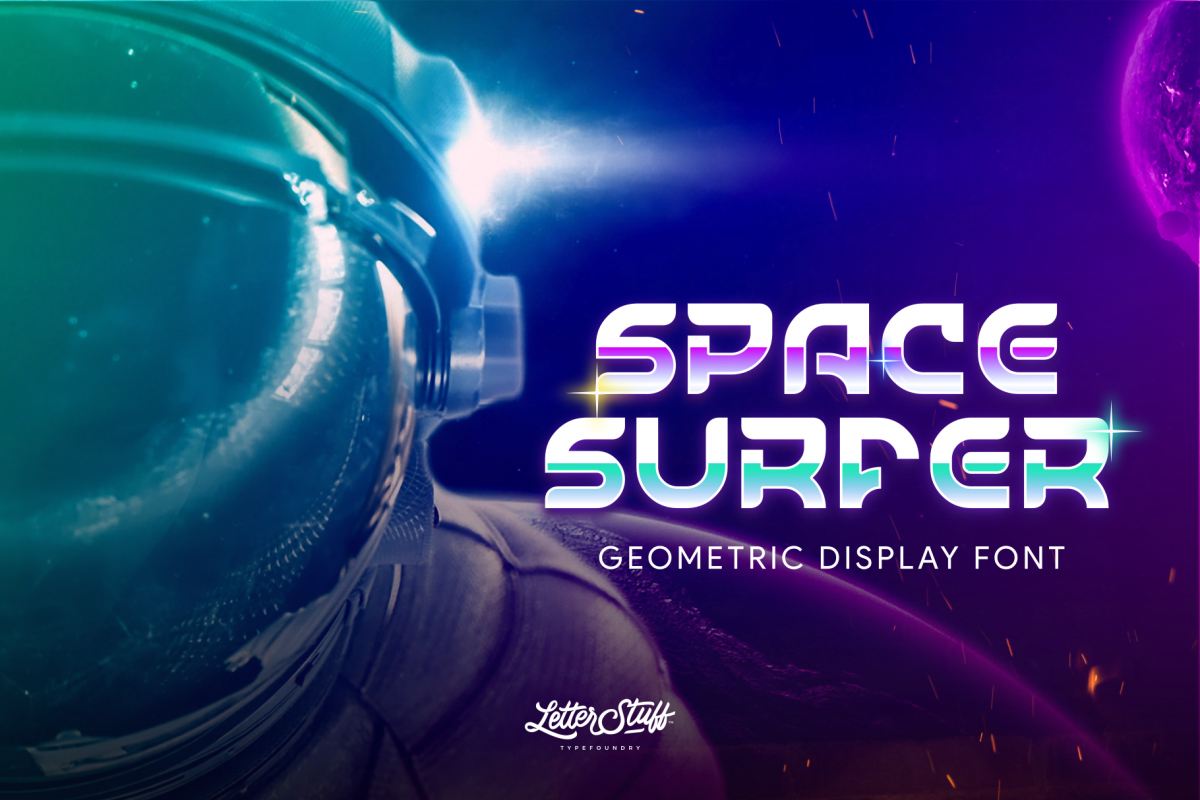
SpaceSurfer Display Font
SpaceSurfer is new futuristic, strong yet bold display font. Made with strong precision and modern looking. Suitable for your modern and futuristic design need.Available style :
• Regular
• Oblique
• Shadow
• Oblique Shadow